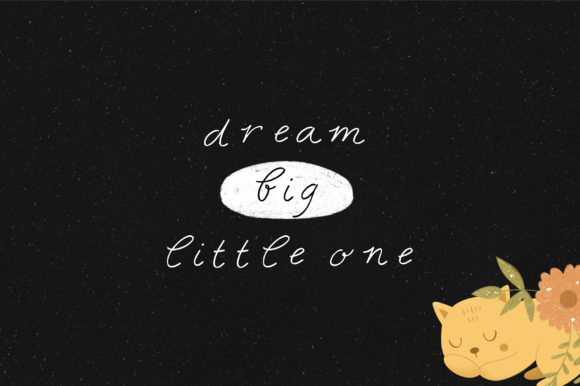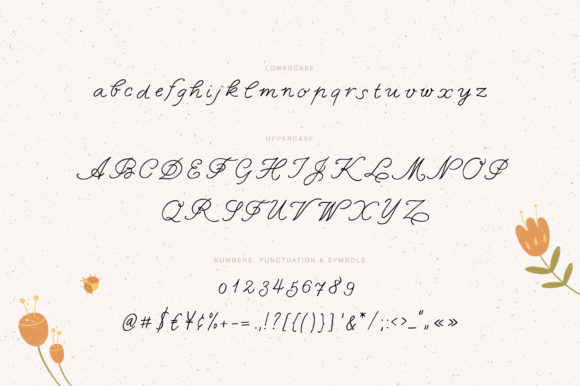
Funny Cat Font
db-ku.com - Script & Handwritten -- Funny Cat is a vintage and delicate handwritten font. Use it for logos, quotes, invitations, greeting cards, posters, and more. Fall in love with its incredibly versatile style and use it to create spectacular designs!